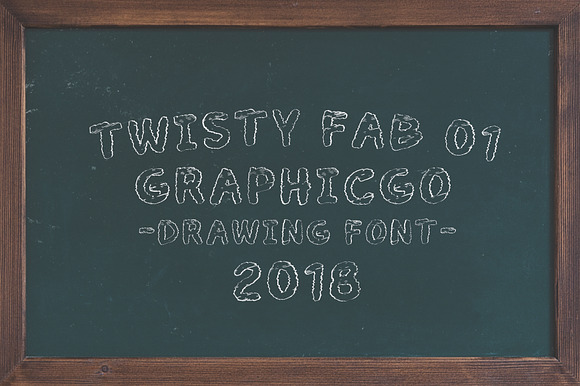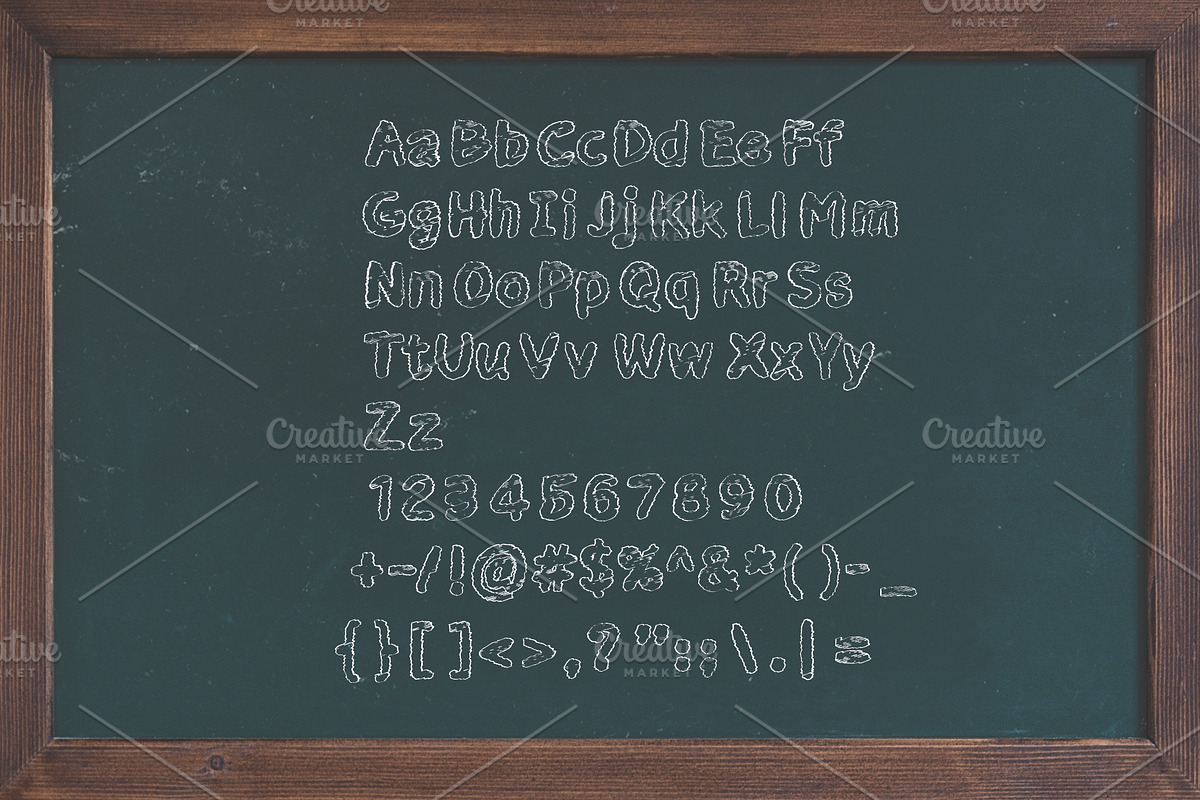
Twisty Fab-01 Font
Twisty Fab-01 Font is chalk and doodle writing style. It 's perfect for kid products, funny looking product, cards, posters, wall art, branding, diy projects, greeting cards, labels, quotes, packaging, websites and much more.
Uppercase and Lowercase
Twisty Fab-01 Font by Graphicgo fits naturally into Branding, posters, packaging, typography.